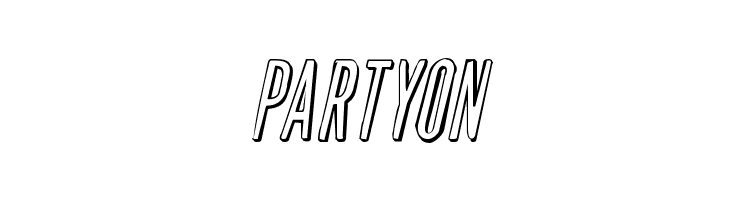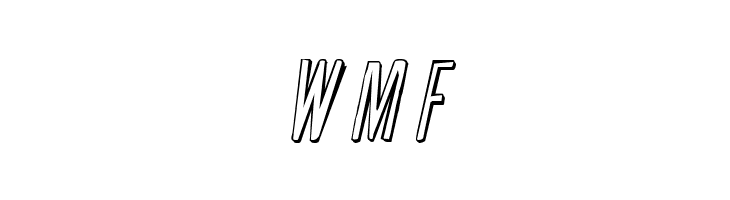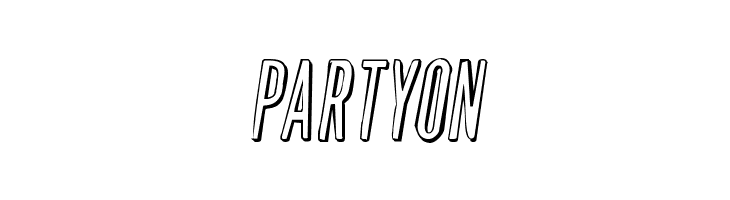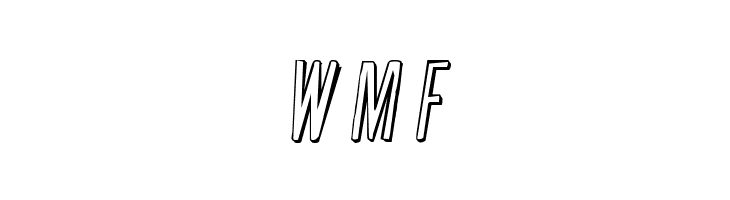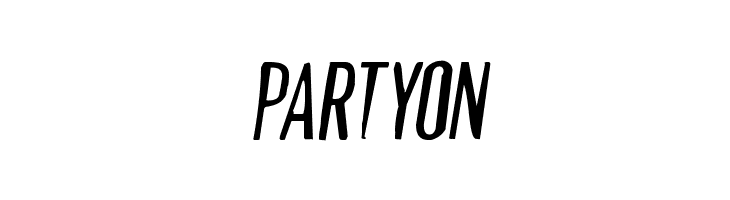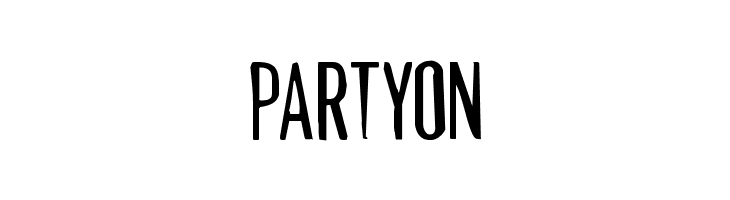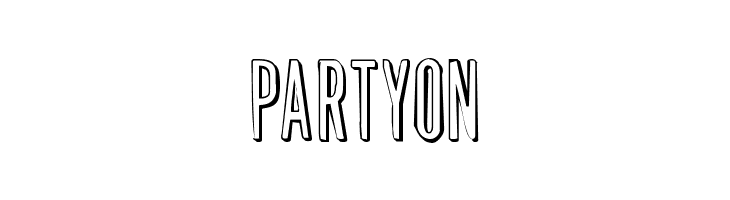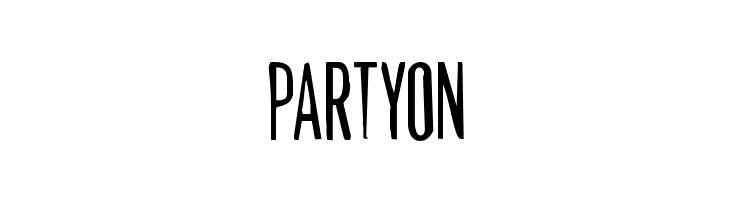
• Slasher Film Rough
A rough, distressed font with elongated, narrow characters and a gritty, hand-drawn aesthetic.
• Slasher Film Rough 3D
A bold, rough, 3D font with a hand-drawn, edgy style.
• Slasher Film Rough 3D Italic
A bold, 3D italic font with outlined characters and a dynamic style.
• Slasher Film Rough 3D SemItal
A bold, 3D, semi-italic font with a rough, dynamic style.
• Slasher Film Rough Cond SemiIt
A rough, condensed, semi-italic font with a gritty, dynamic style.
• Slasher Film Rough Conden Ital
A sharp, condensed, and italicized font with high contrast, ideal for dramatic designs.
• Slasher Film Rough Condensed
A rough, condensed font with a gritty and edgy appearance.
• Slasher Film Rough Exp SemItal
A bold, rough, and slanted font with a hand-drawn appearance.
• Slasher Film Rough Expand Ital
A bold, italicized font with a rough, edgy style and medium contrast.
• Slasher Film Rough Expanded
A bold, rough, hand-drawn font with a vintage, distressed appearance.